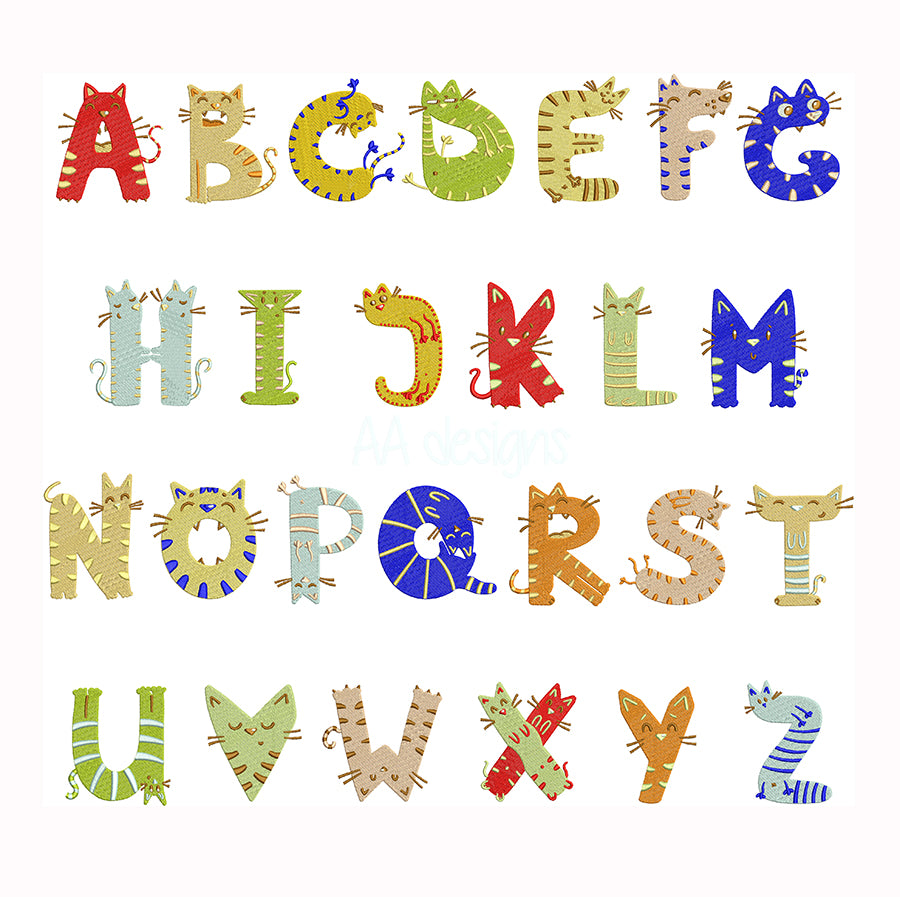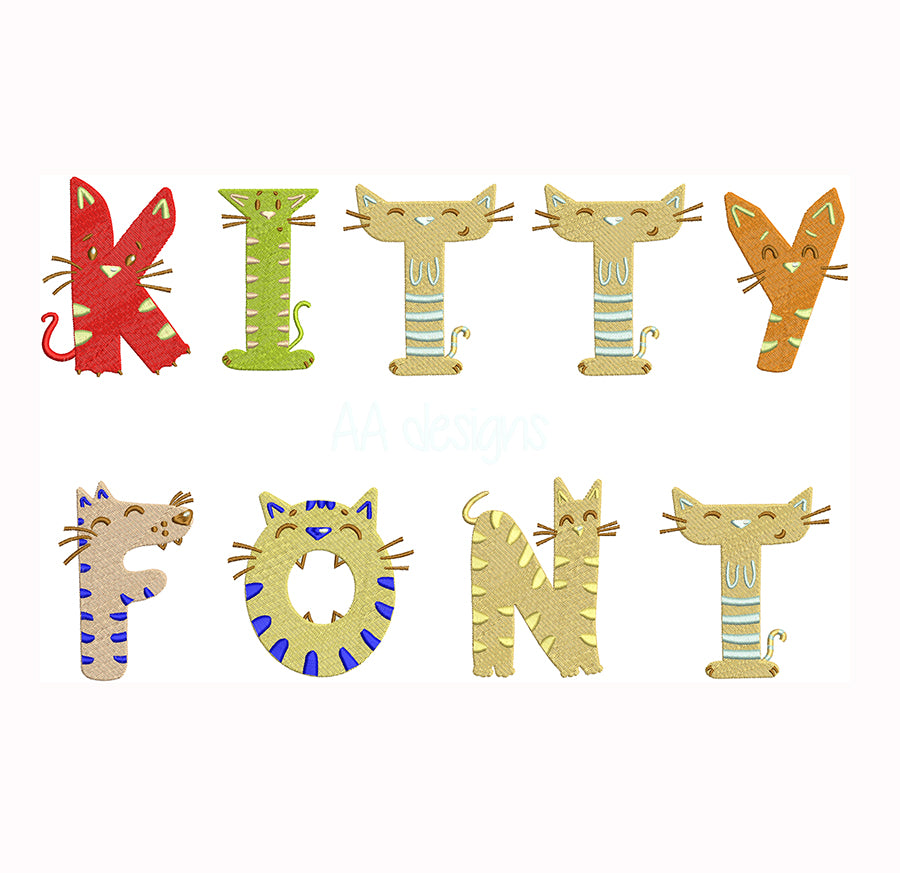
Cute Kitty Embroidery Font
Purrfect your embroidery projects with the Cute Kitty Embroidery Font — an irresistibly adorable machine embroidery font featuring playful, cat-inspired letterforms that are sure to delight kids and cat lovers alike! 🐱✨🧵
With its whimsical kitty accents and charming design, this font is perfect for personalizing children's apparel, cat lover gifts, pet accessories, tote bags, nursery décor, and anything that needs a sweet, feline touch.
- Includes full alphabet (A–Z, a–z) and numbers
- Clean, detailed stitching optimized for small and medium sizes